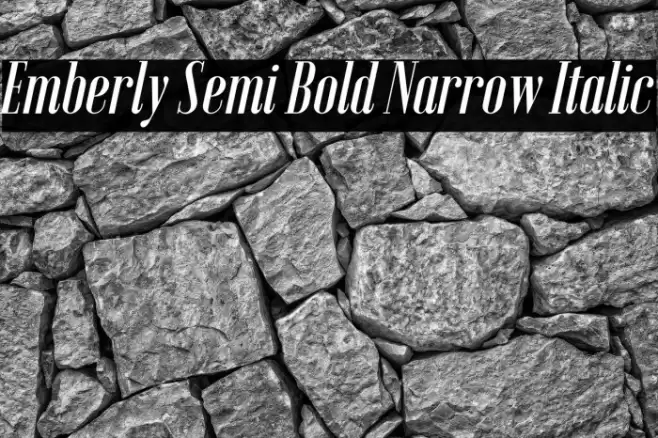
Emberly Semi Bold Narrow Italic Font
Emberly Semi Bold Narrow Italic Description
This font exhibits a sophisticated and elegant style with a semi-bold weight and narrow width. The italicized form adds a dynamic and flowing character to the text, making it suitable for creative and expressive designs. The uppercase and lowercase letters are well-proportioned, with a slight slant that enhances readability while maintaining an artistic flair. The numerals and special characters are designed to complement the overall aesthetic, ensuring consistency across different types of content. The font's high contrast in stroke thickness adds a dramatic touch, making it stand out in various applications.
An elegant, semi-bold, narrow italic font with high contrast from Serif fonts.
- Proposed Projects: Ideal for fashion magazines, luxury branding, wedding invitations, and elegant posters.